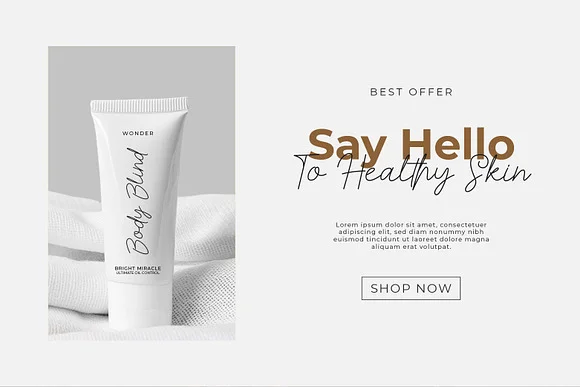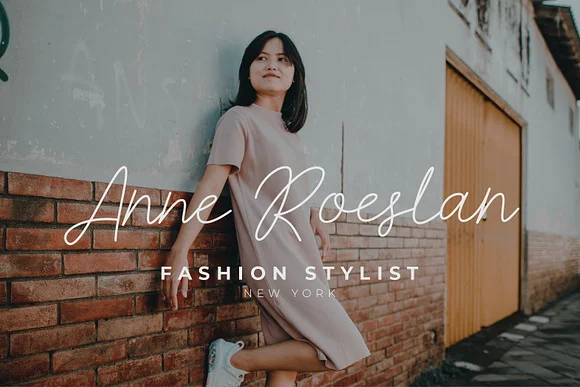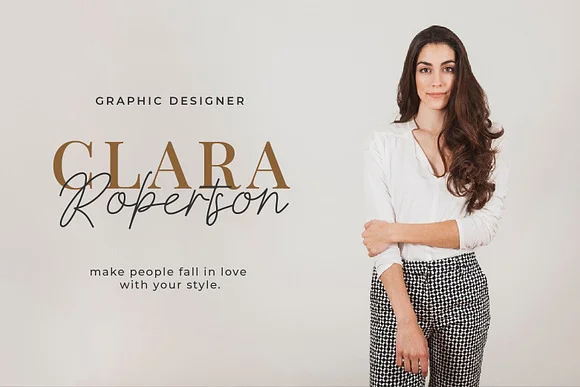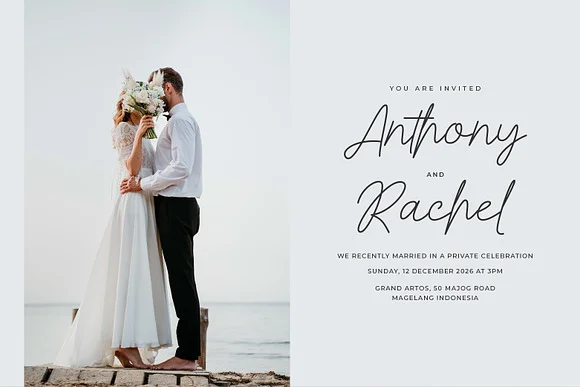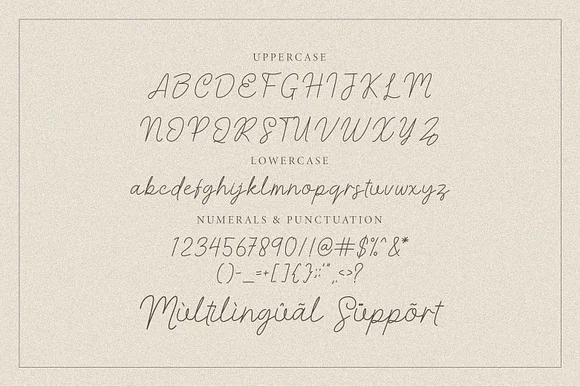
Cathely - Script Handwritten Font
Typography shapes perception at a subconscious level. Cathely - Script Handwritten leverages refined proportions and careful stroke modulation to make every composition feel considered. The typeface brings a warm, personal sensibility to a broad range of creative disciplines, with distinctive character without sacrificing readability that holds up whether the work is print-first or screen-first.
In practice, Cathely - Script Handwritten proves particularly effective for social media graphics, advertising campaigns, brand identity systems, DIY project labels, journal covers. Designers reaching for it find that the type decisions feel resolved rather than laboured — a useful quality when client timelines are tight.
The range of applications extends to personal stationery, editorial layouts, logo design, annual reports. That breadth is deliberate: the proportions and spacing were stress-tested across a wide range of mock briefs before the typeface was finalised.
The pen angle is consistent throughout, suggesting a single author rather than a composite of assembled letterforms. Slight irregularities in stroke width at entry and exit points reproduce the acceleration and deceleration of a real writing instrument.
At smaller sizes the design retains its character without becoming cluttered. This resilience across scales makes Cathely - Script Handwritten equally suitable for a business card and a billboard — a useful property when assets must scale across a campaign.
Art directors commissioning type-led campaigns find Cathely - Script Handwritten a reliable choice for projects that demand both personality and restraint. The design avoids the self-conscious quirkiness that dates quickly, settling instead for considered distinctiveness that holds up over time.